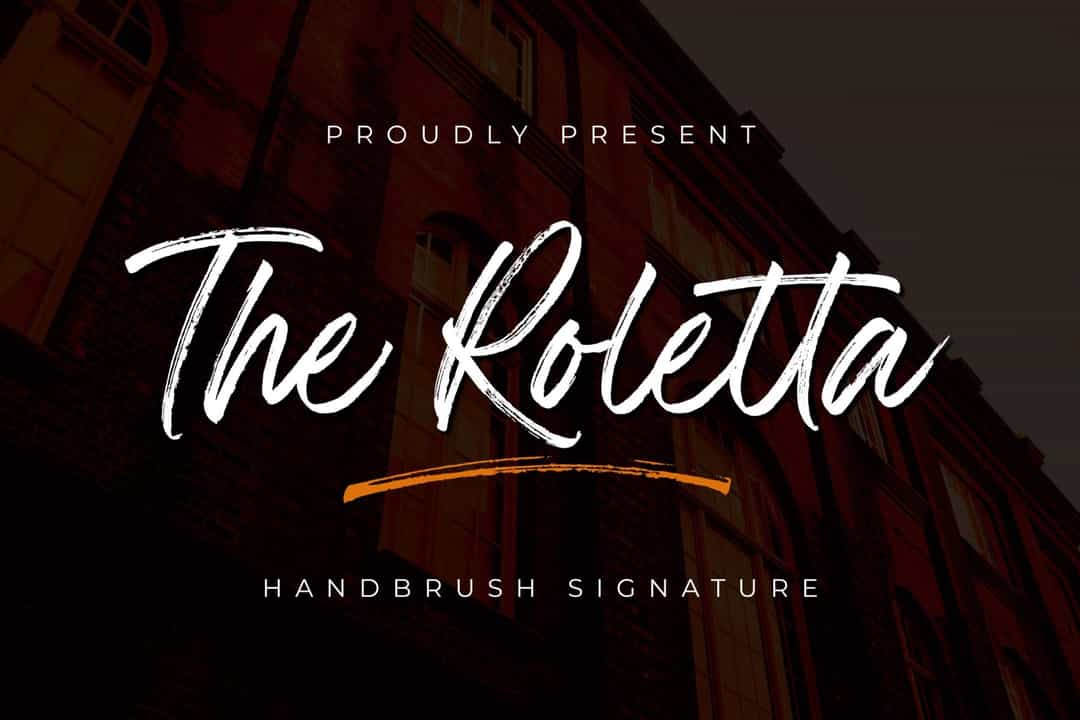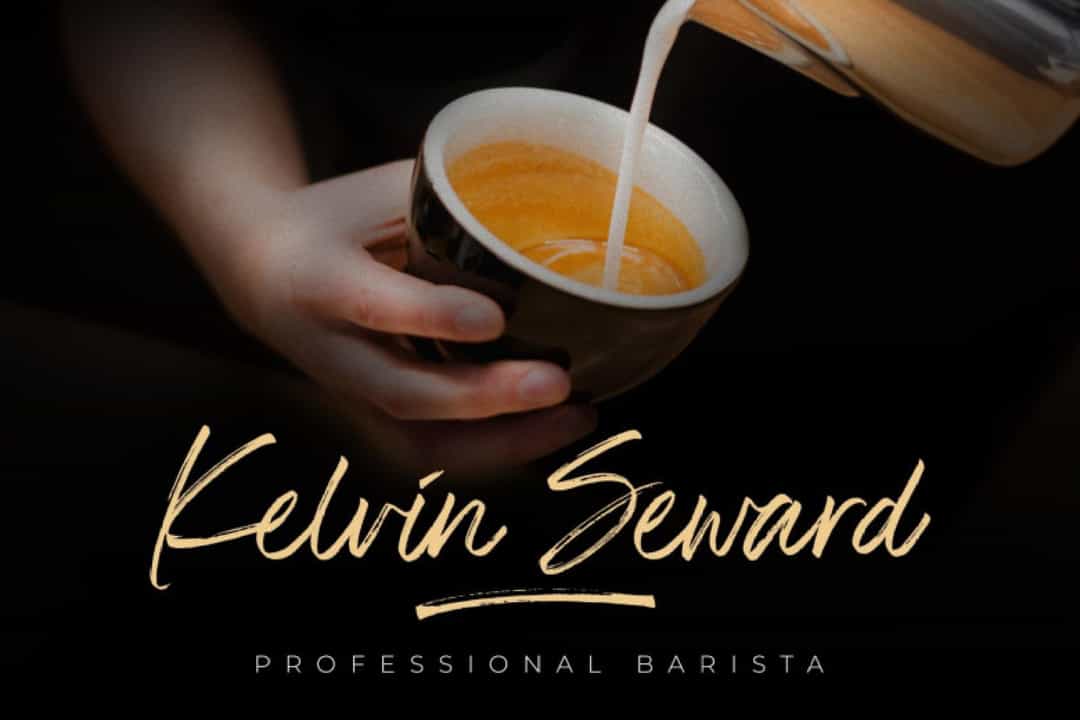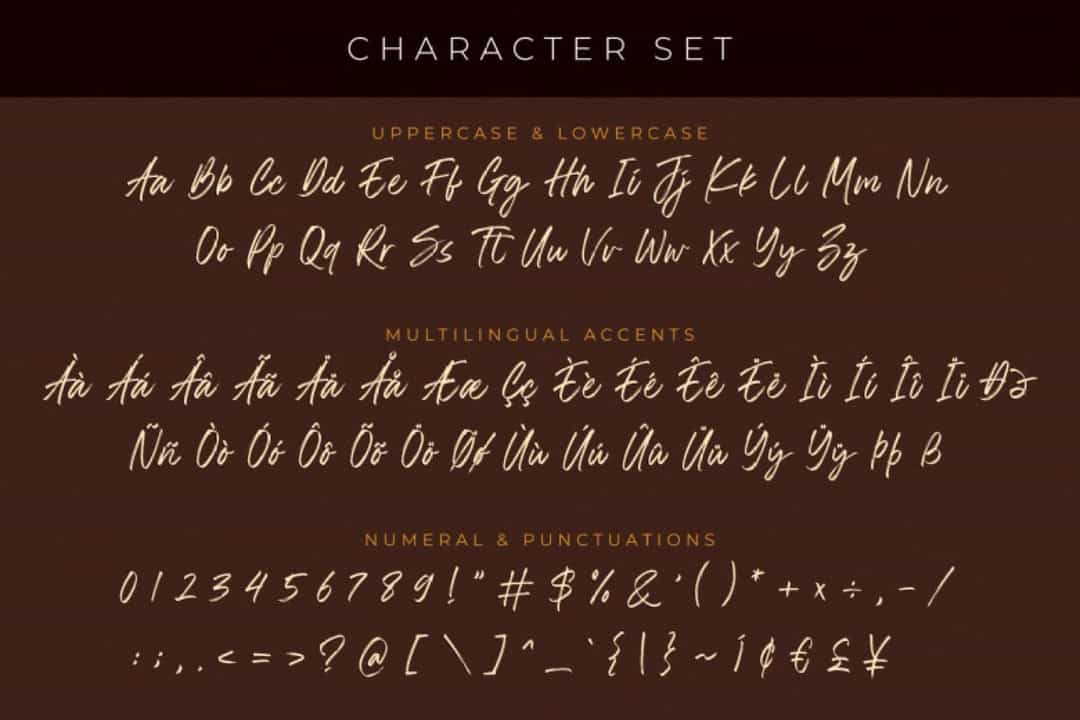
The Roletta Handbrush Signature Font is an e-typeface with a brush script written casually and quickly, using brushes and paper for letter creation before scanning them carefully to vector format for vectorisation. As a result, Rolleta boasts charming yet natural yet relaxed style and four styles: Normal, Slant Alternate as well as Alternate Slant variations which give a natural appearance to text.